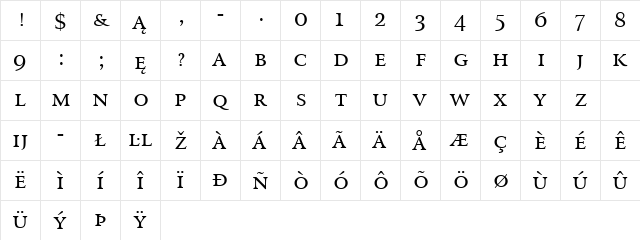
Arrus SmCap BT Small Cap
Design Context for Arrus SmCap BT Typeface
Arrus SmCap BT takes a measured approach to typography — its balanced proportions and neutral character make it a reliable workhorse for both digital and print work.